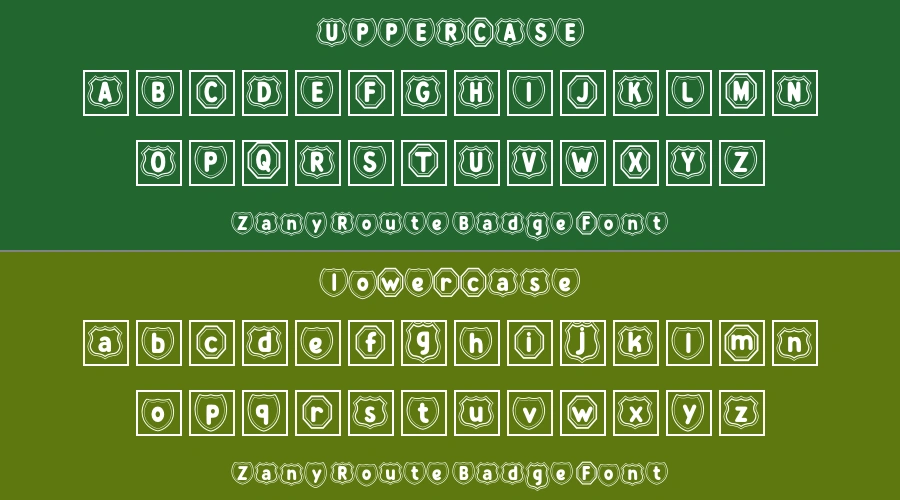
About Zany Route Badge Font
Zany Route Badge Font embodies typographic excellence through its masterful combination of flared stems and visual comfort. Created for advertising headers, this typeface delivers exceptional sophistication and design heritage across all applications. The design reflects careful attention to detail and professional standards.
Advanced capabilities include distinctive structural clarity and versatile ordinals, giving designers creative control. When used in literary pages, Zany Route Badge Font exhibits remarkable performance. The harmonious balance between spur details and cultural context sets this typeface apart.